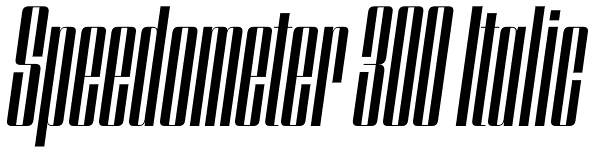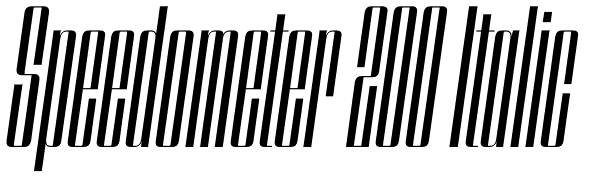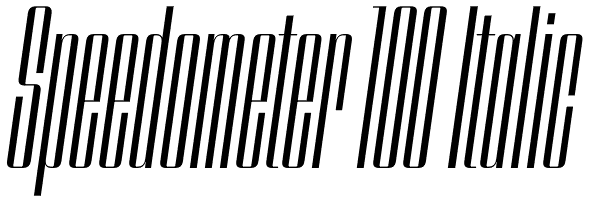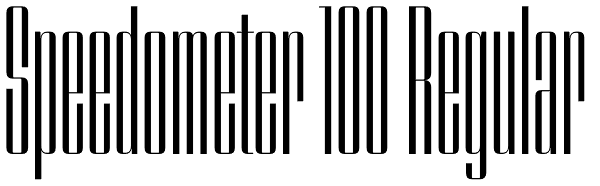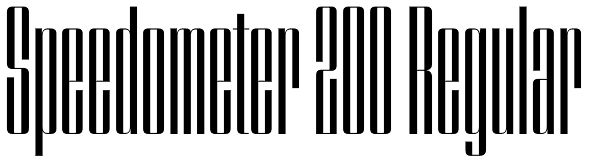
Speedometer
Speedometer is derived from Dimensions font family that is most narrow and black font for titling and logo. This speedometer is more elegant by its contrast between the thickness of stem and thinness of the arms than Dimensions. This contrast makes...